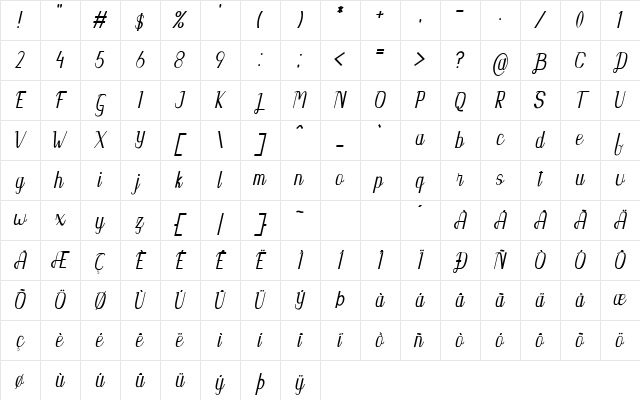
Kupika Regular Free Font
Kupika Regular
Designer: AmruID
Design Context for Kupika
Kupika is a composed and adaptable typeface that performs quietly and consistently across a wide range of design contexts.